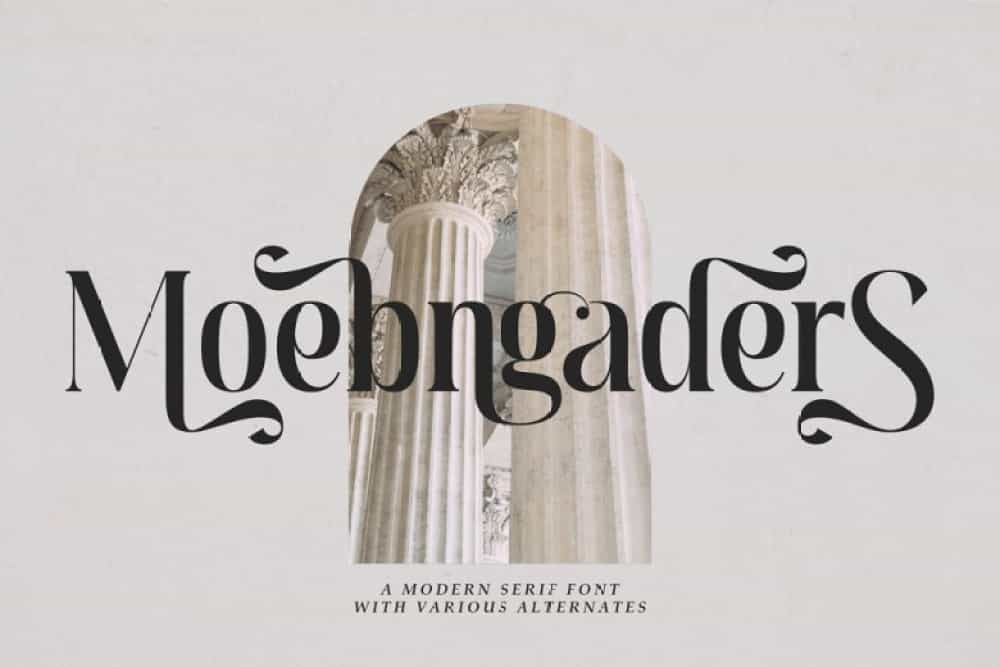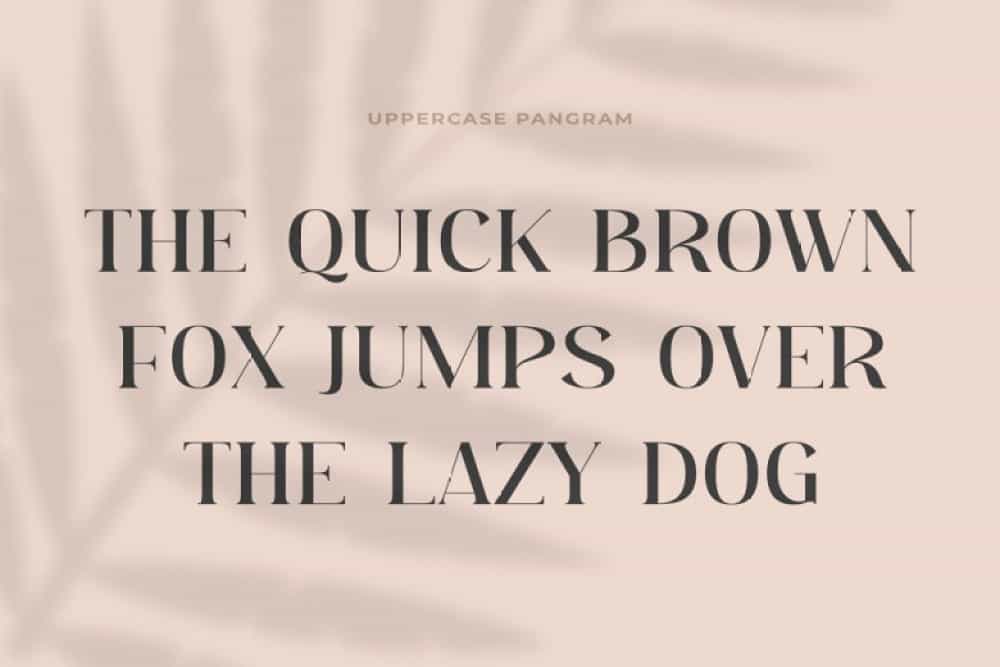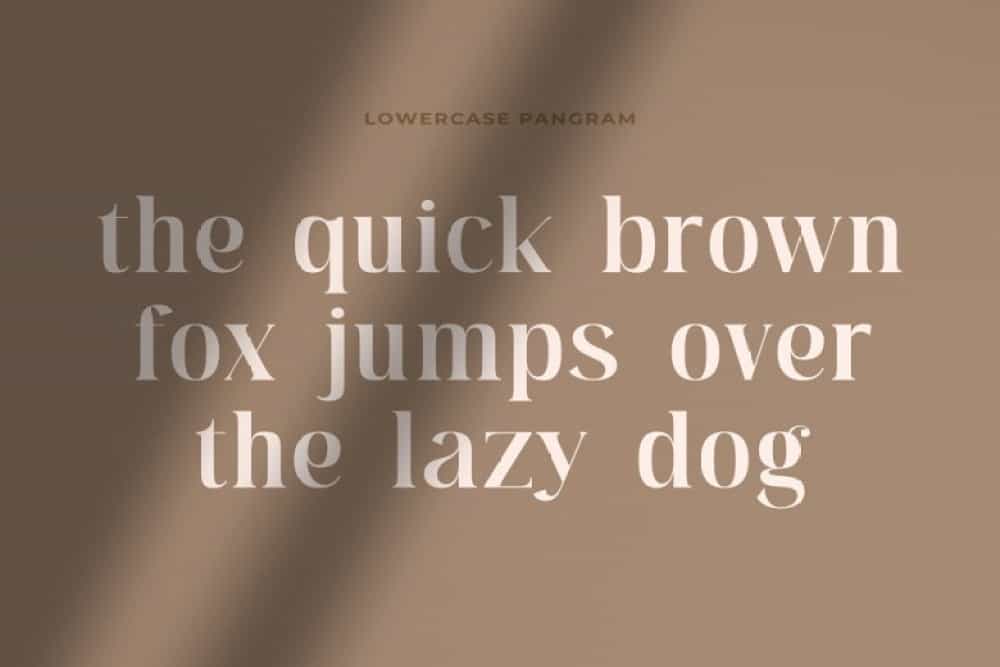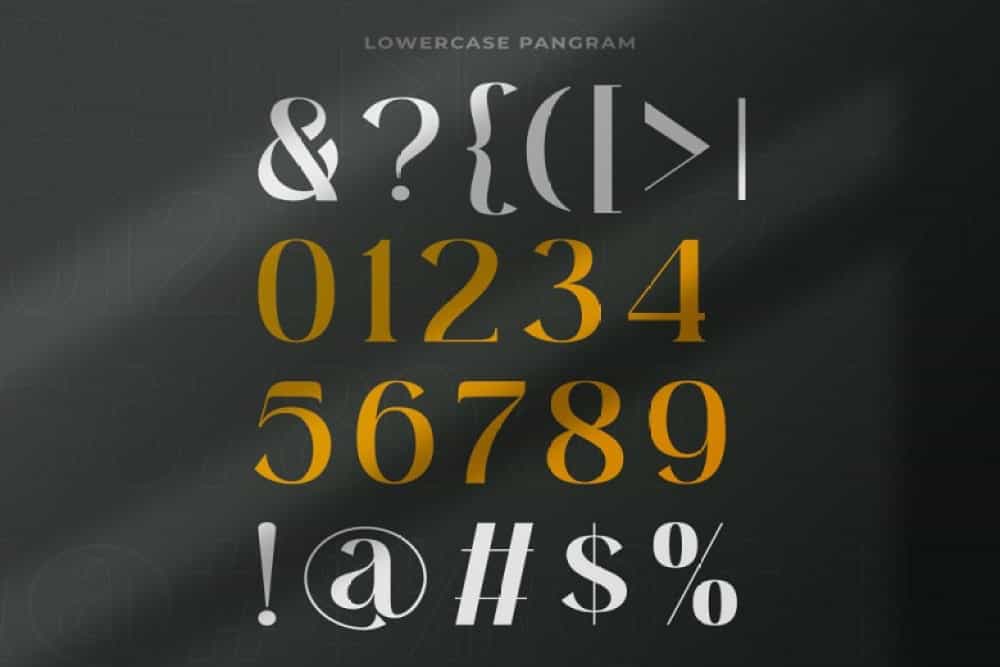
Moebngaders is a new serif font which combines sophistication with power. In whatever you are creating from building a brand, creating a logotype, or any other creative processes, Moebngaders has got your back. Moebngaders does not want to conform to the normality.